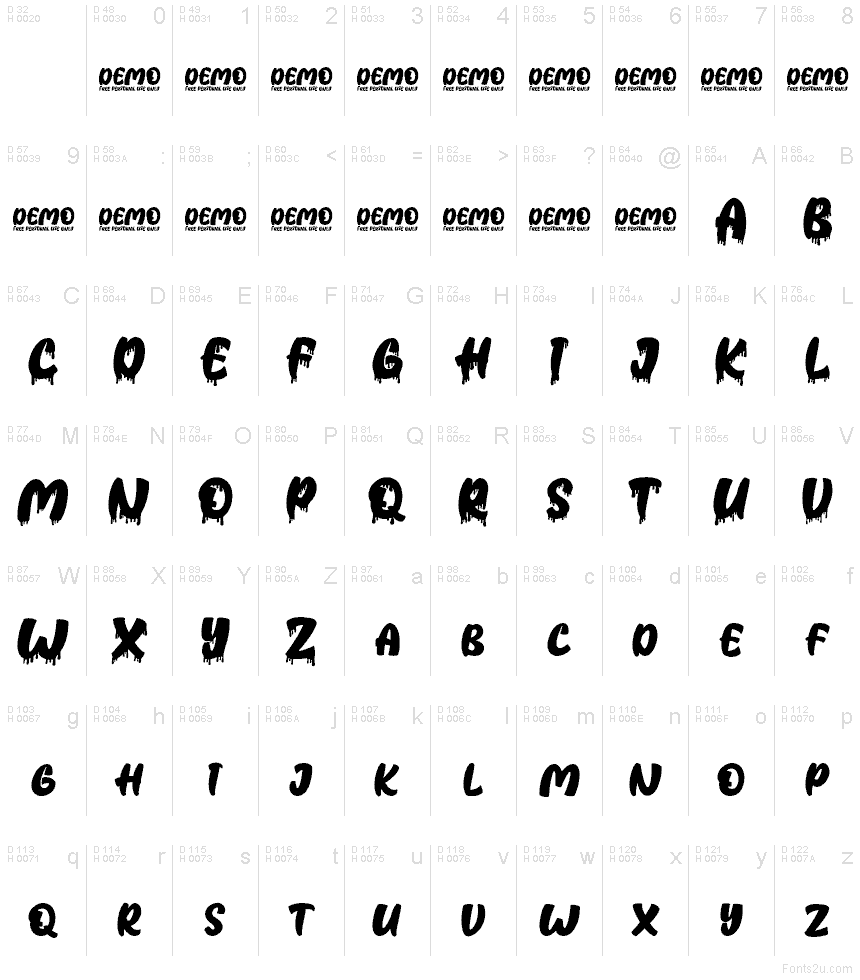
Strezy Break Regular
Strezy Break font by Rvandtype is a free bold graffiti display font. Built on juicy, brushy strokes with inky drips that hang off the forms, it captures fresh paint mid-slide. The letters swell and squeeze with a lively bounce, giving headlines a hand-sprayed swagger while staying chunky enough to read at a glance.
Using Strezy Break, your message hits like a wall tag: streetwear logos, skate posters, album covers, festival flyers, game titles, and punchy YouTube thumbnails all shine. This free font loves oversized settings and a touch of extra tracking. For balance, pair it with a clean condensed sans to keep body copy crisp and let the drips do the shouting.